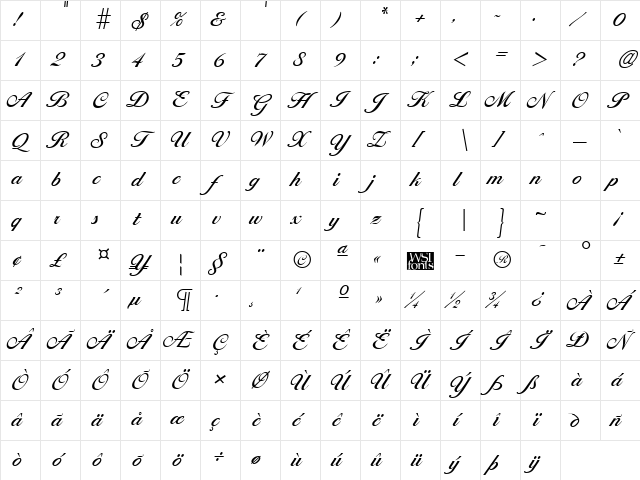
Larissa Regular
Larissa Family
Larissa Regular
Complete Larissa Regular glyph index. Displaying only characters natively supported by Larissa Regular font.
Design Context for Larissa
Larissa is a composed and adaptable typeface that performs quietly and consistently across a wide range of design contexts.